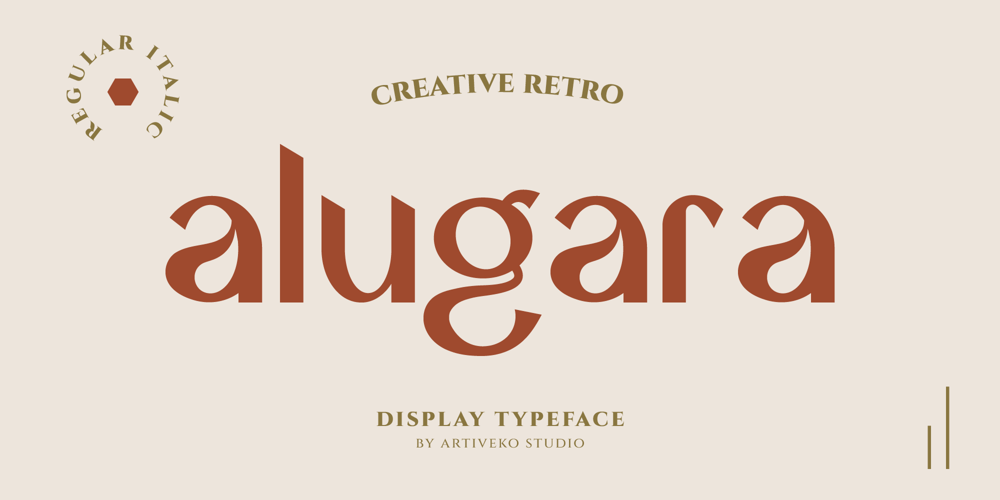
Alugara Font Family was designed by Iwan Alwan and published by Artiveko. Alugara contains 2 styles and family package options. Alugara is a robust condensed sans serif font, renowned for its unique design and versatile character set. Created by Iwan Alwan, this font features distinct variations in both uppercase and lowercase letters, enhancing its adaptability for diverse design needs. With multilingual support, Alugara seamlessly caters to a global audience, making it an ideal choice for impactful headlines, logos, and branding projects.